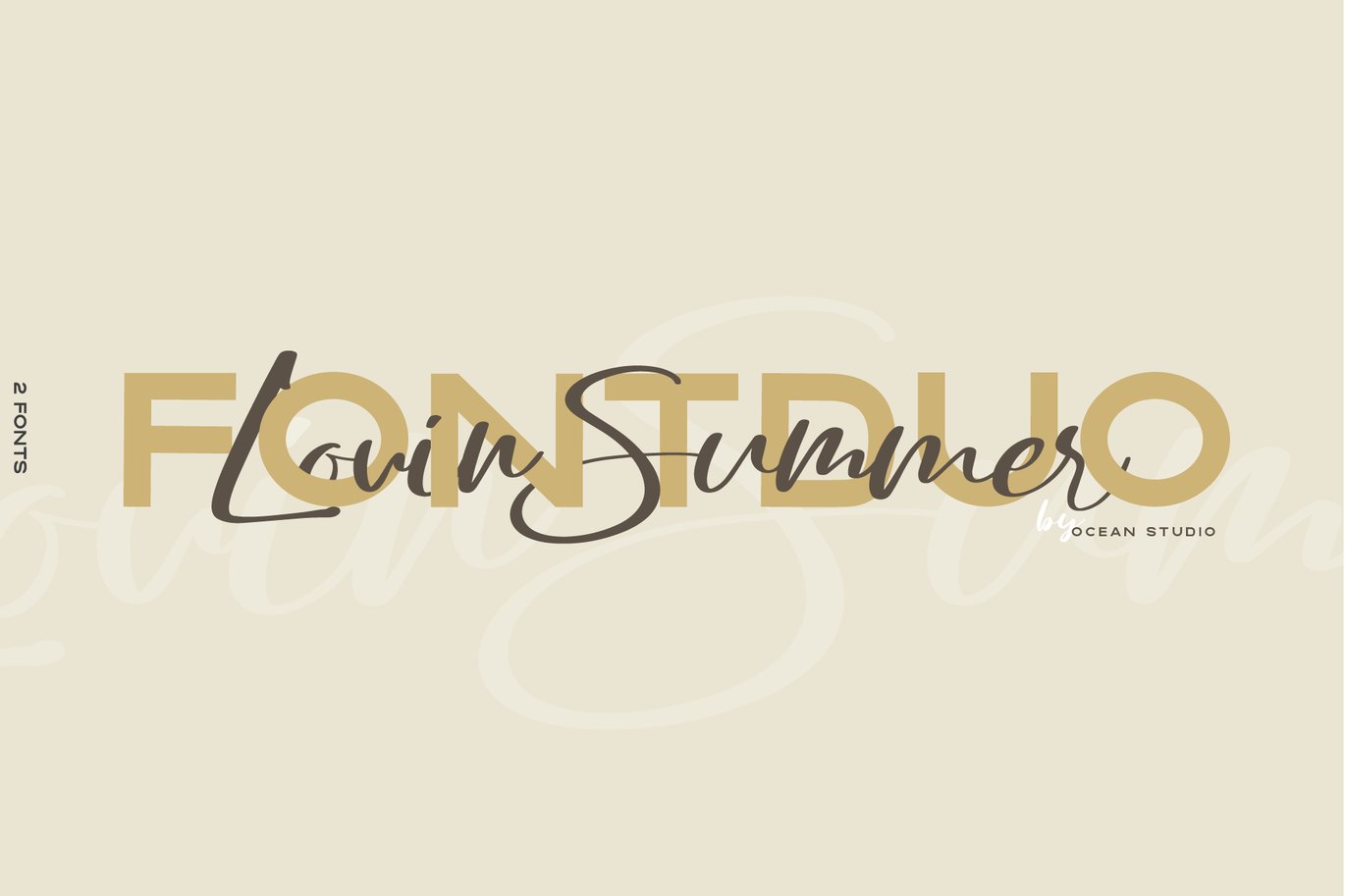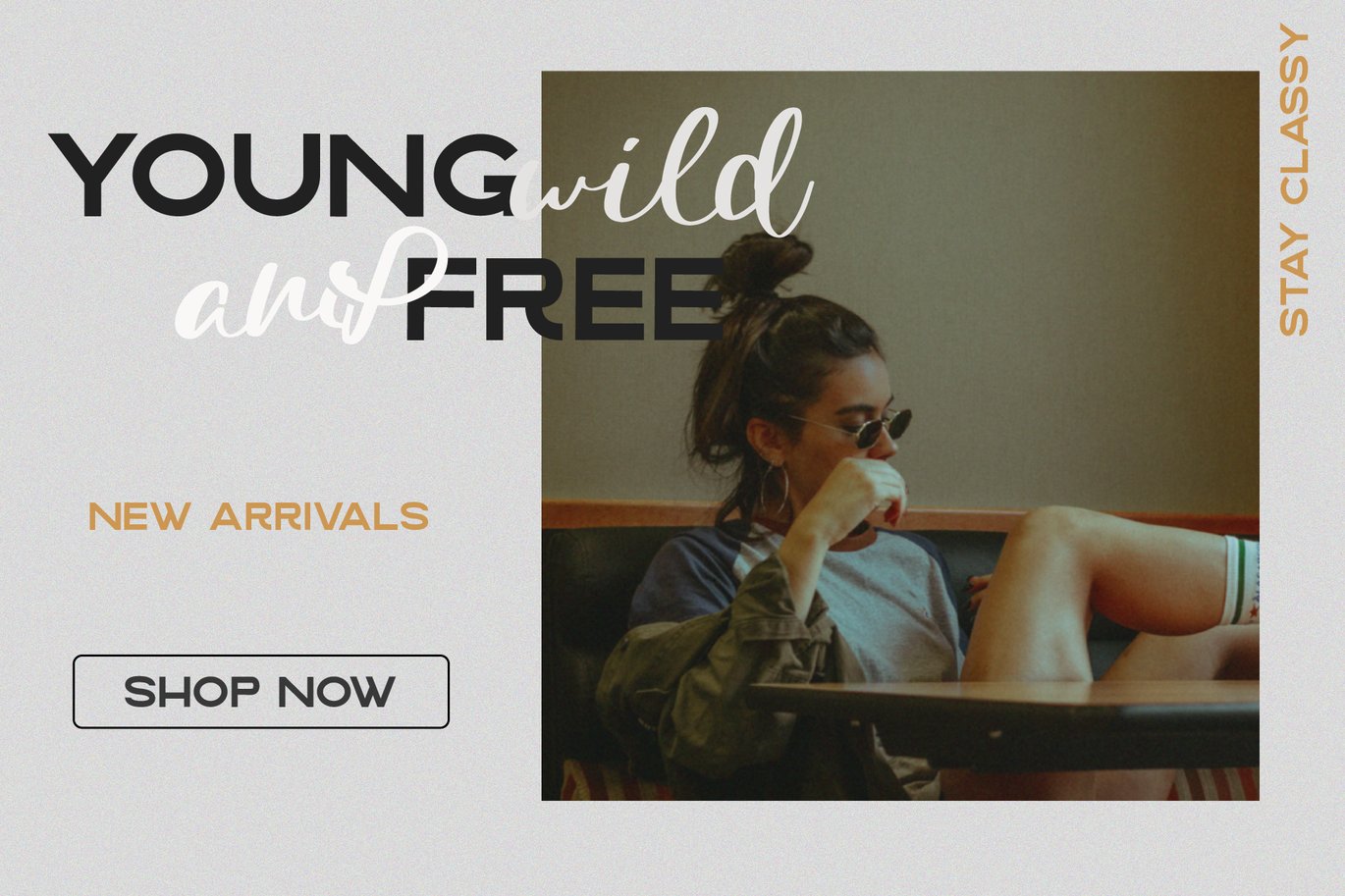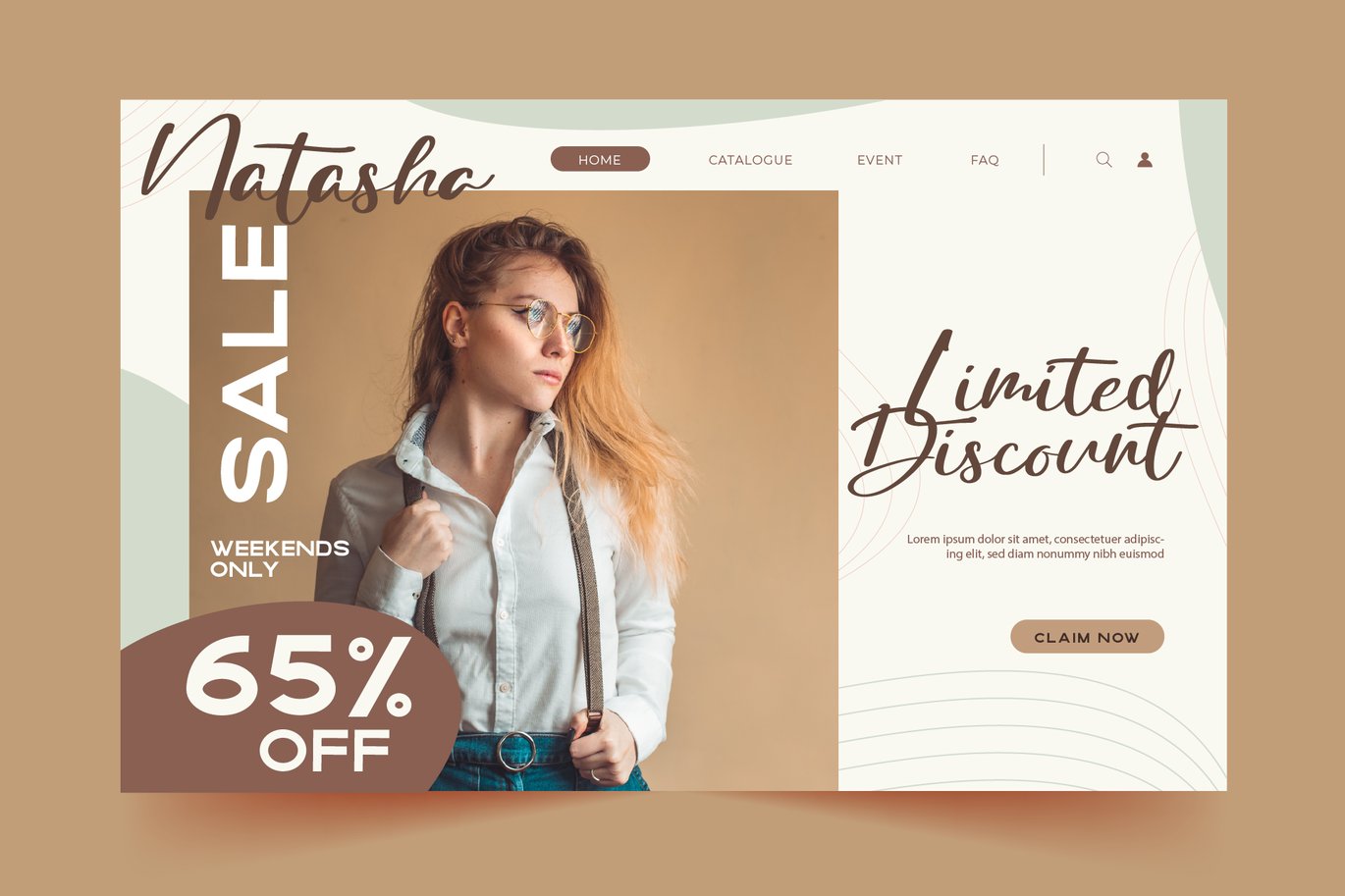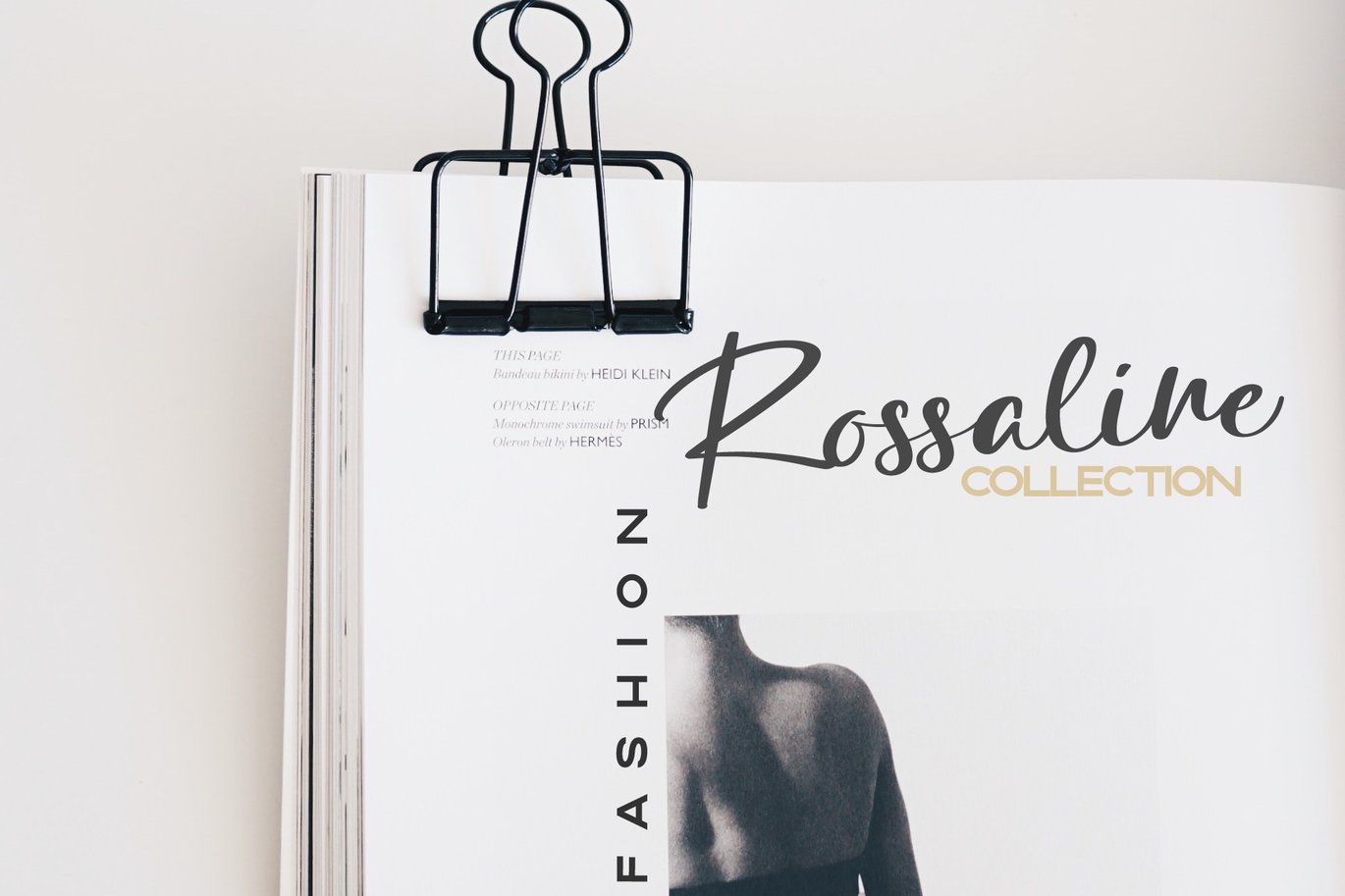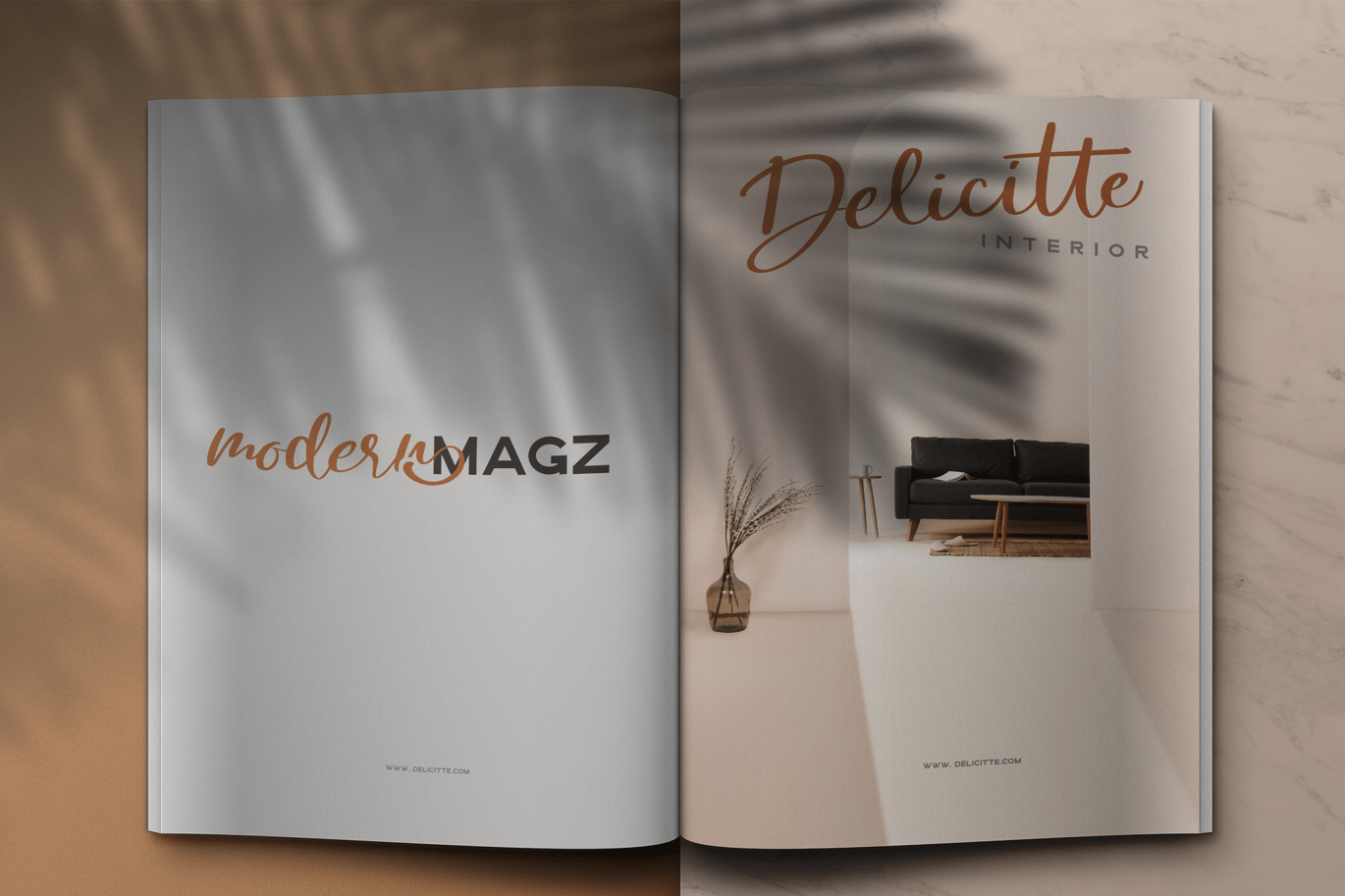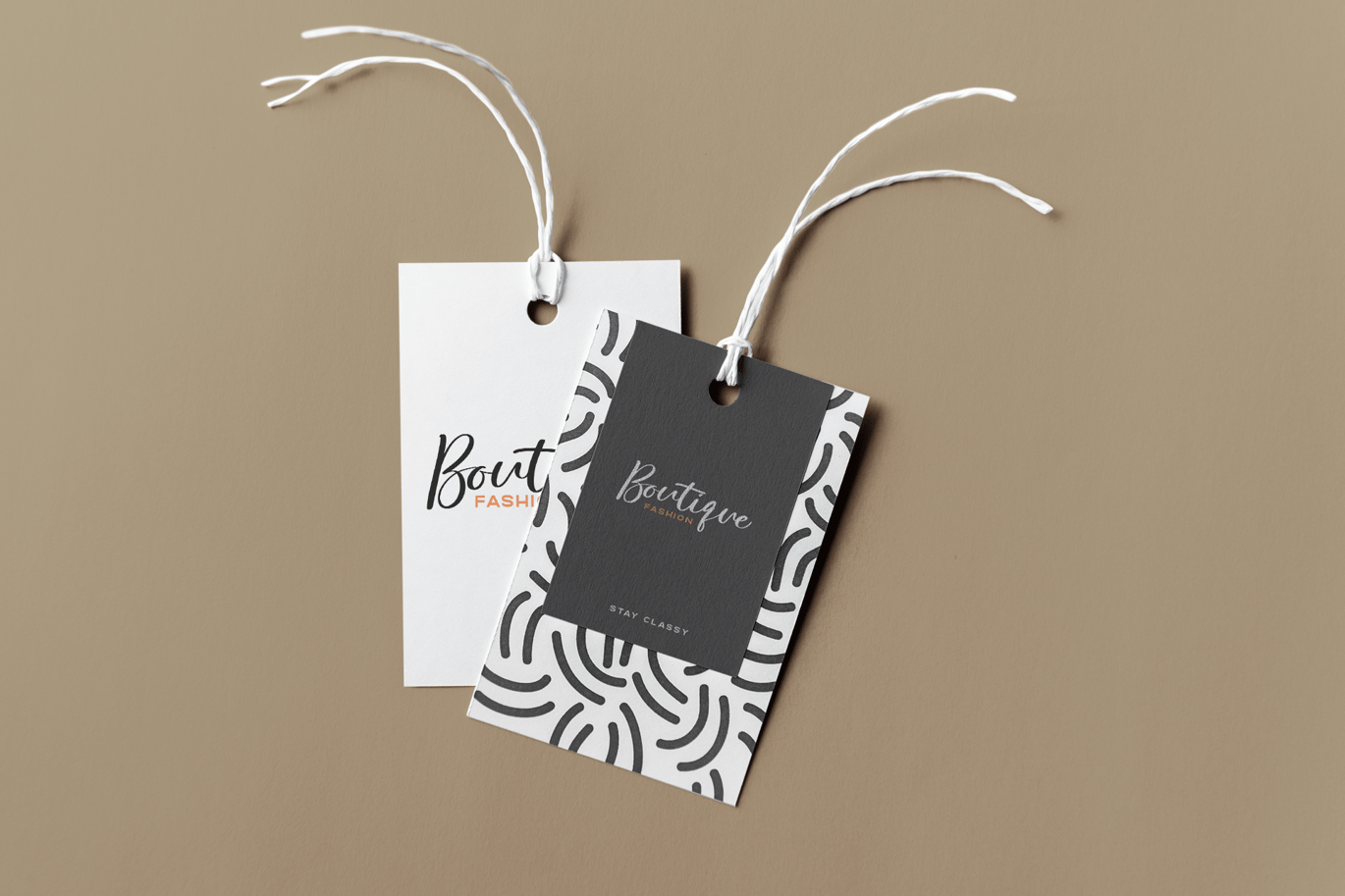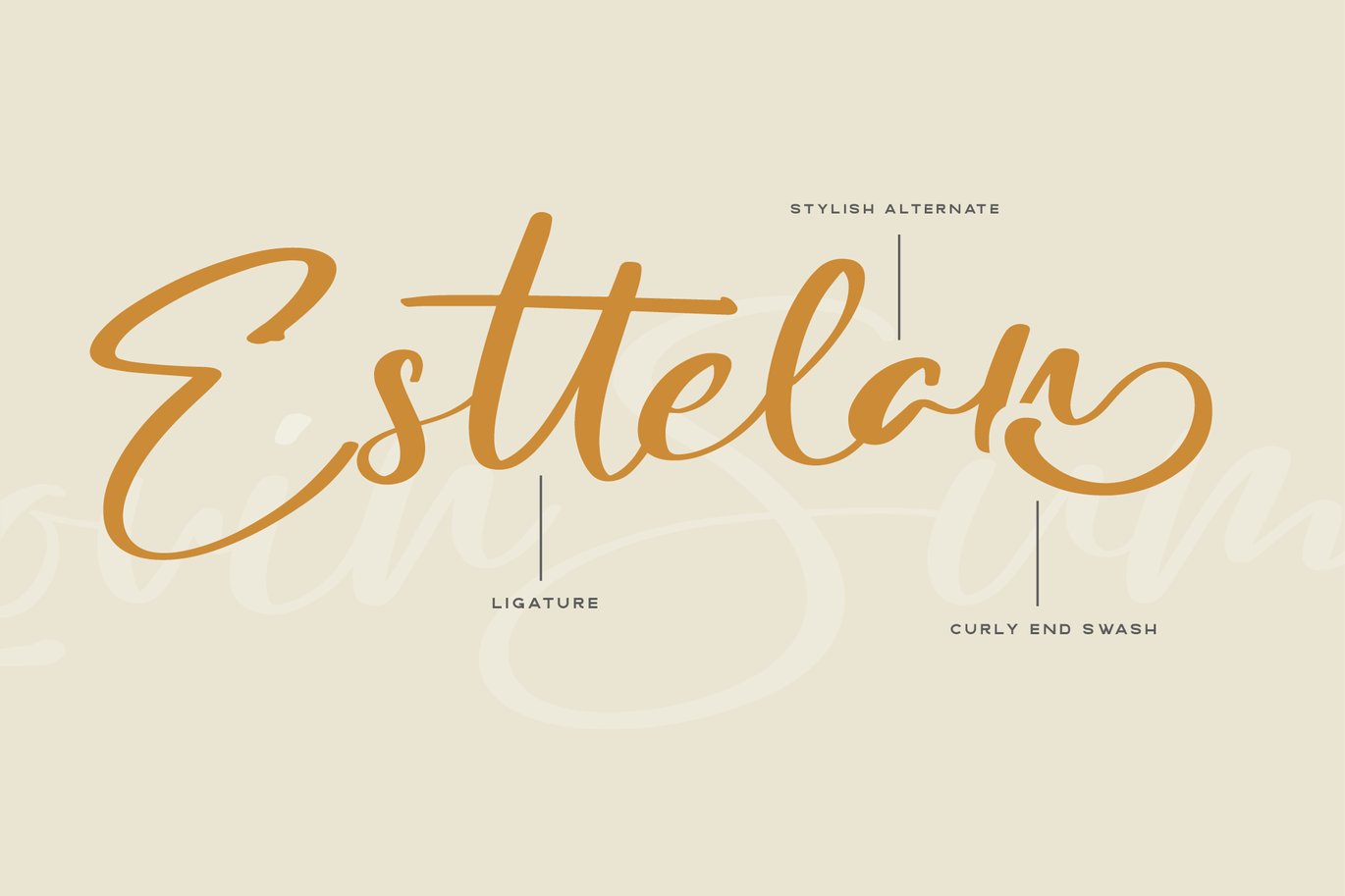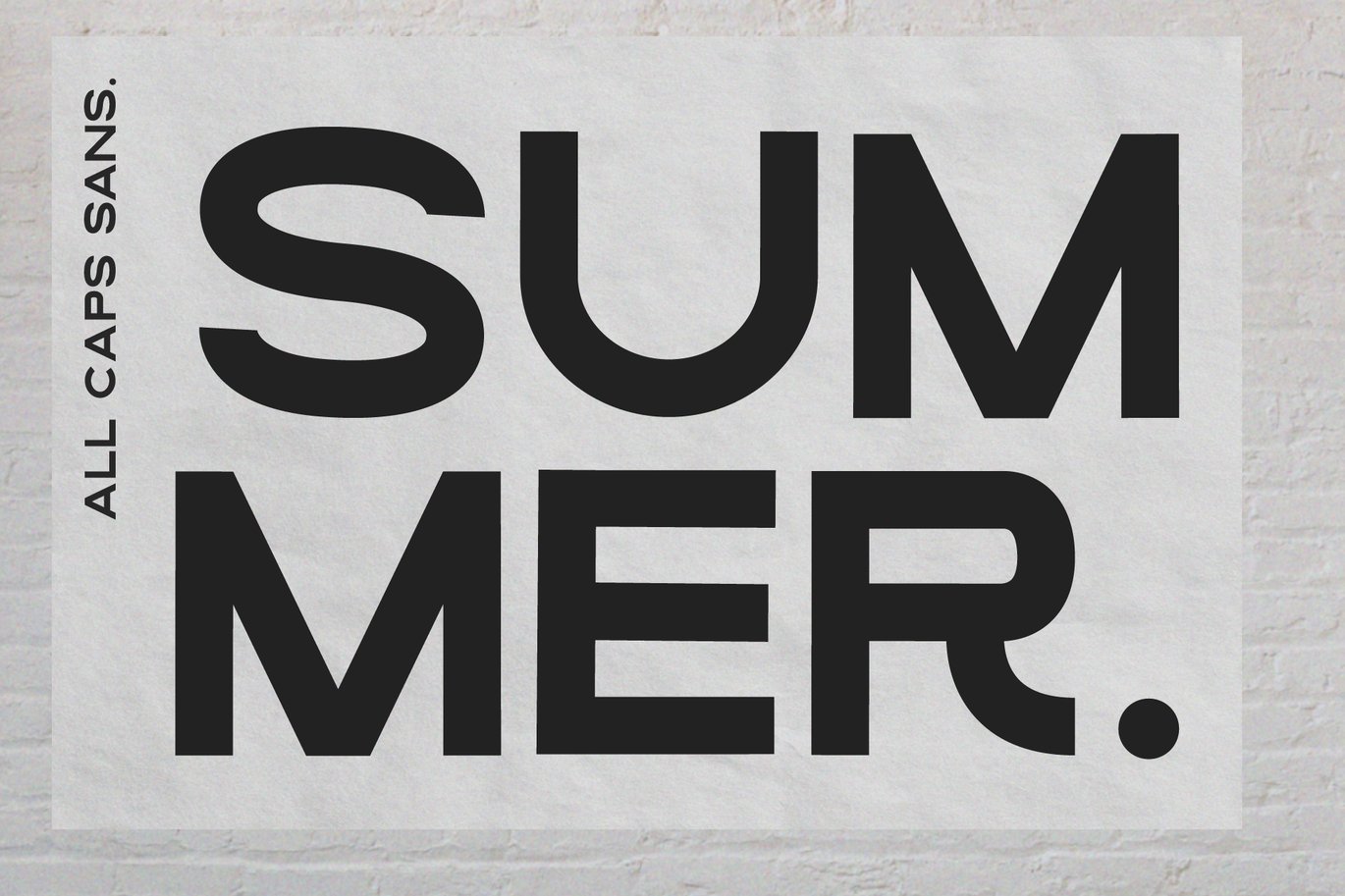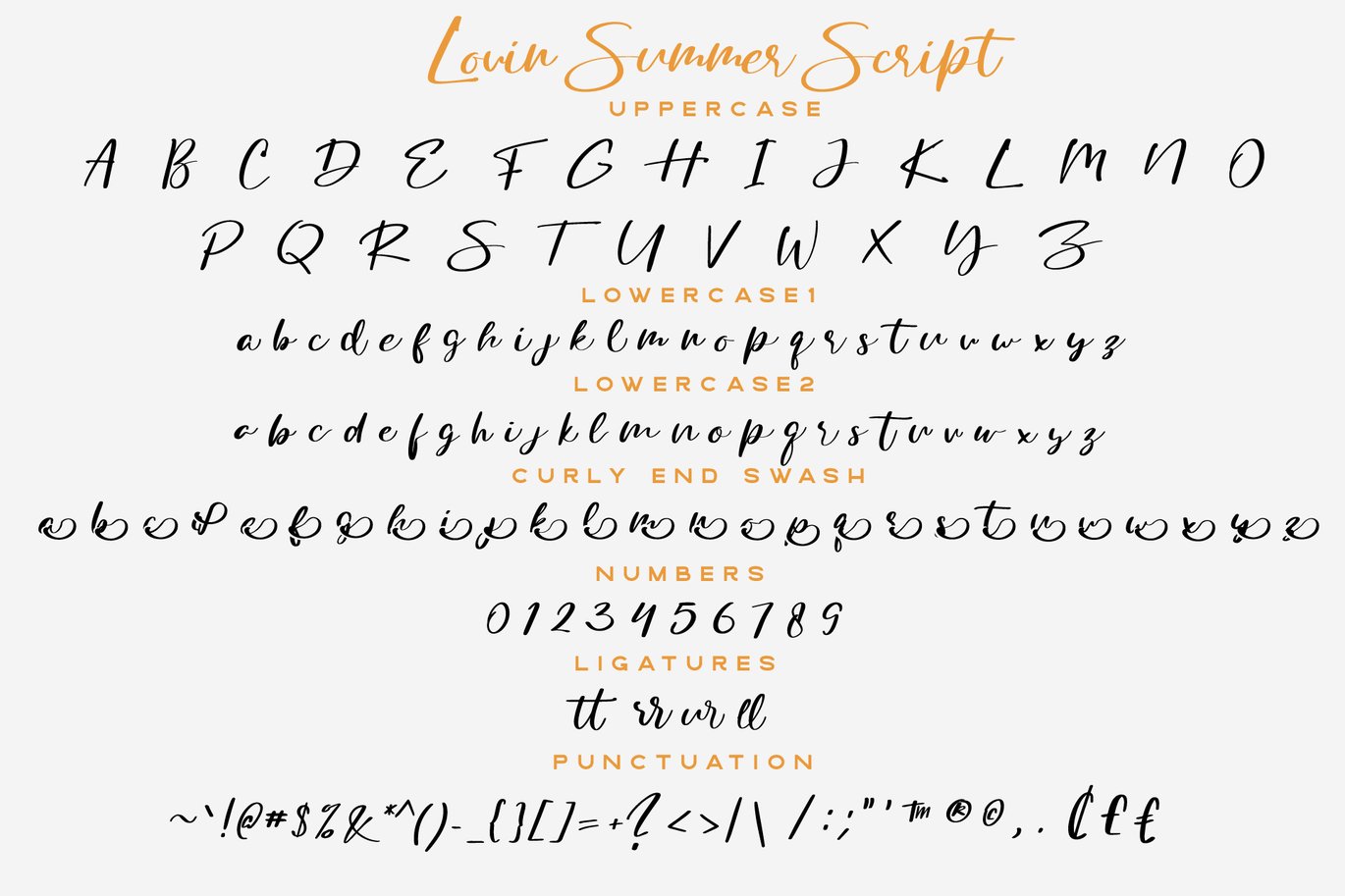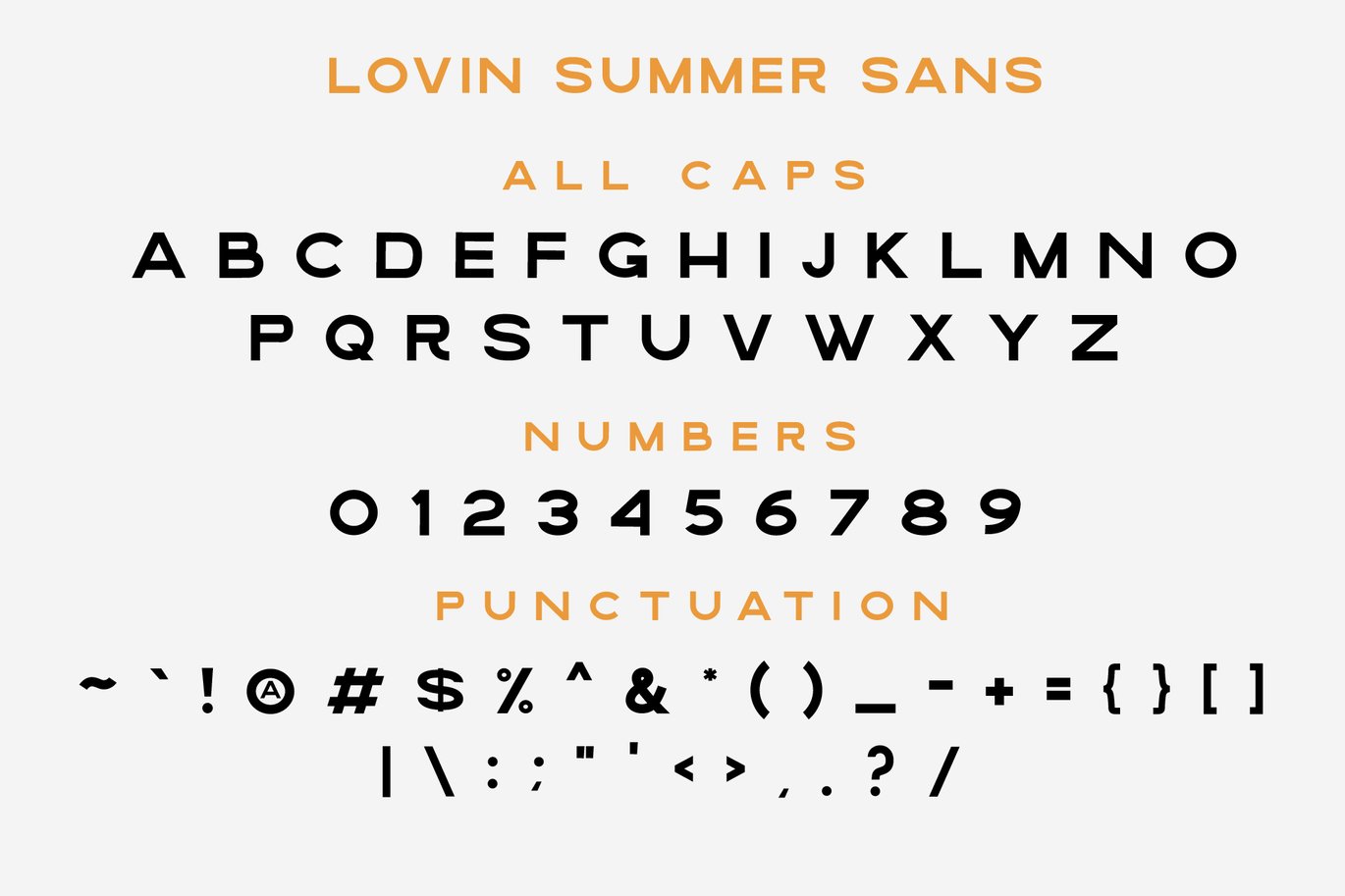
Loving Summer | Font Duo
Lovin Summer is a beautiful Script combine with stylish strong sans. The combination of the font will make your design more beautiful and classy. This font is suitable for any design like Logo, branding, quotes, and etc.
very single letters have been carefully crafted to make your text looks beautiful